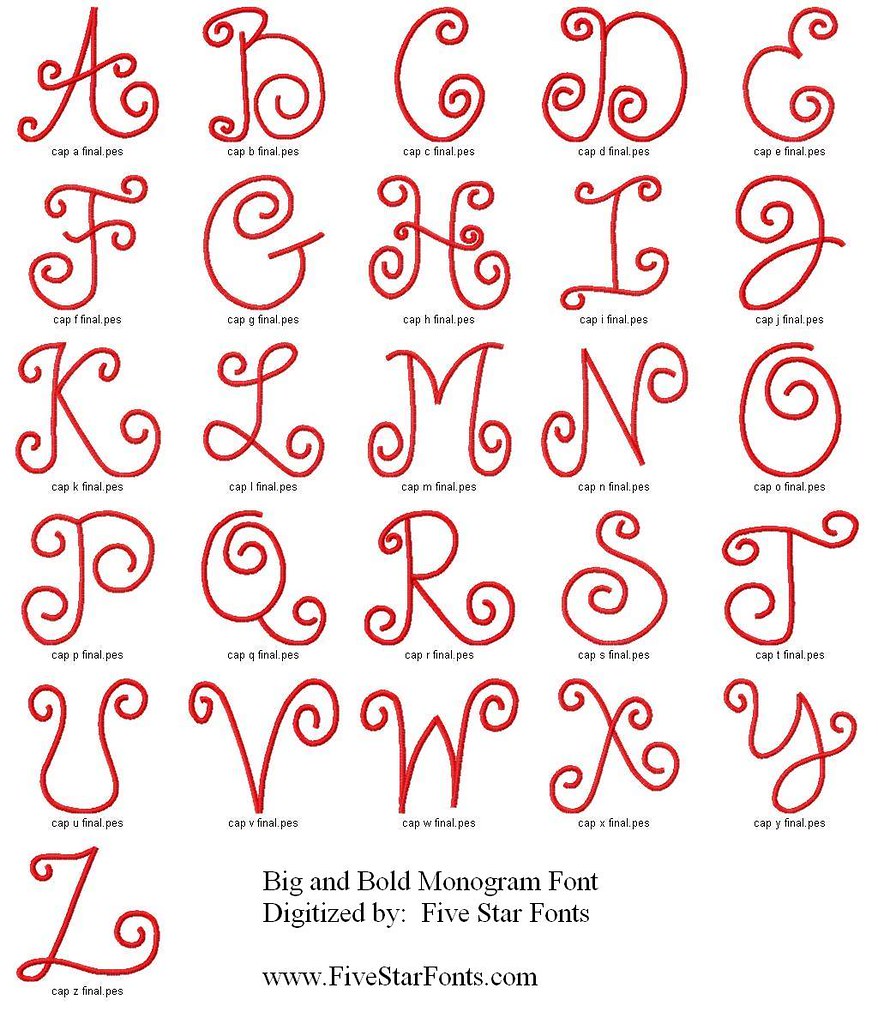
Five Star Fonts Free Embroidery Machine Fonts
5 Reasons Why You Should Use Free Embroidery Machine Fonts
In the age of DIY and home crafts, embroidery machines are becoming increasingly popular. If you’re considering taking up embroidery, you may be wondering what type of fonts you should use. Luckily, there are plenty of free embroidery machine fonts available. Here are five reasons why you should use free fonts for your embroidery projects.
Another benefit of free embroidery machine fonts is the variety available. As the name suggests, free fonts are typically available in a wide range of designs and styles. This makes it easy to find the perfect font for your project. From traditional scripts to bold and modern fonts, you’ll be able to find something that fits your project’s needs.
Using free fonts can also help you to experiment with different styles. If you’re not sure what type of font to use for your project, free fonts can provide an opportunity to try out different styles without committing to a purchase. This can be especially useful if you’re just starting out in the world of embroidery and aren’t sure which style is right for you.
Where to Find Five Star Fonts for Your Embroidery Projects
Five star fonts are a popular choice for embroidery projects. These fonts are typically bold and modern, making them perfect for creating a statement piece. If you’re looking for five star fonts to use in your project, there are a few places you can look.
Using free embroidery machine fonts is a great way to save money and time while creating beautiful projects. Five star fonts are a popular choice for embroidery projects, and they are readily available online. Whether you’re looking for a bold and modern font or a traditional script, you’re sure to find the perfect font for your project.